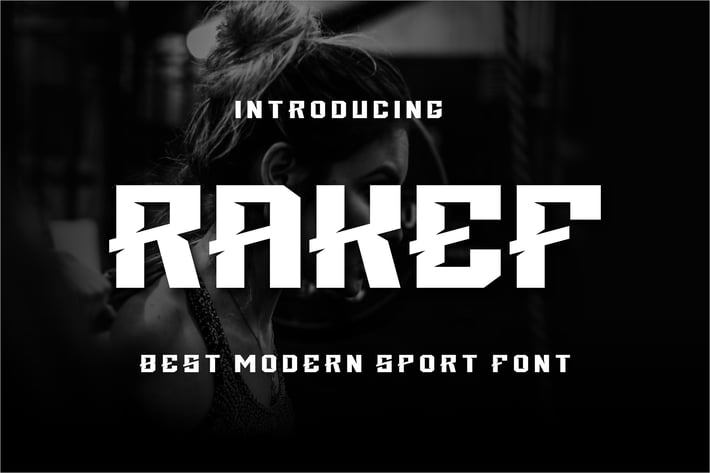
Rakef Font
Introducing our new product Rakef - Modern Font
Rakef is a bold, modern display font with playful flair, ideal for attention-grabbing headlines, logos, and diverse design projects. Versatile and readable in both digital and print, Rakef adds a dynamic touch to your message.